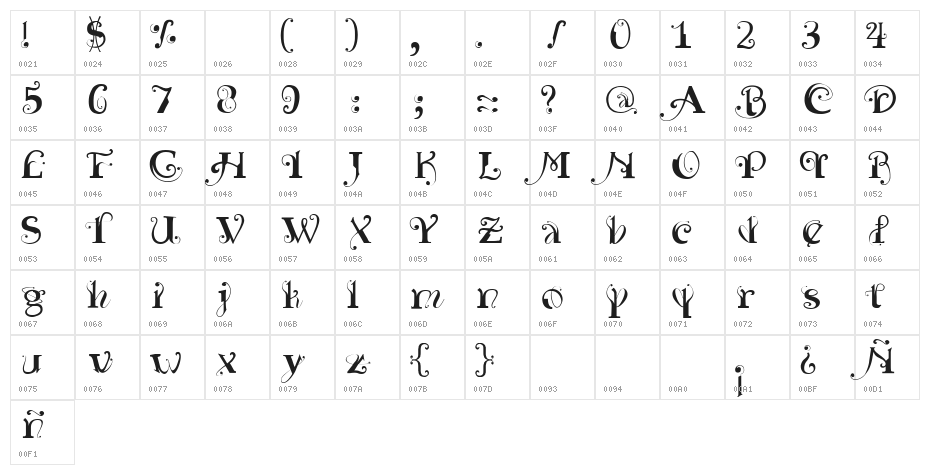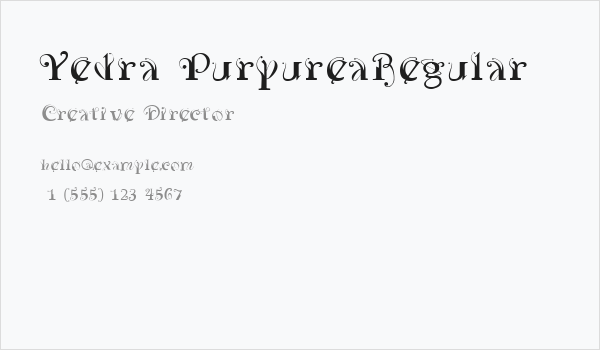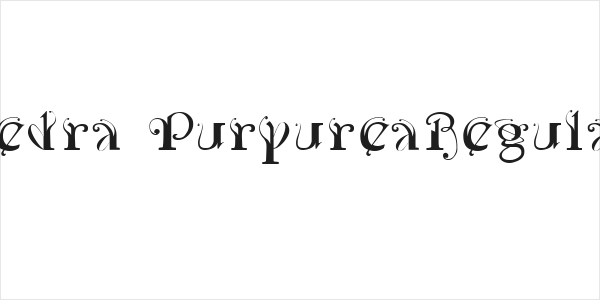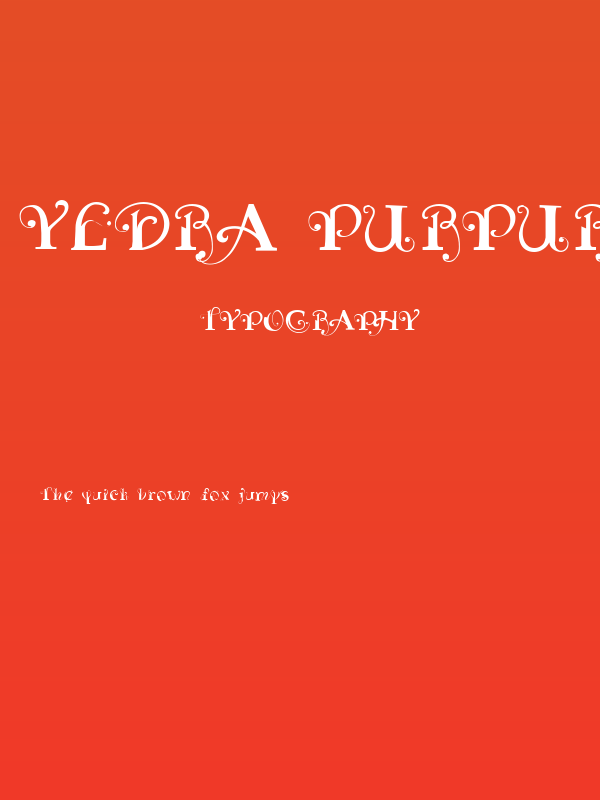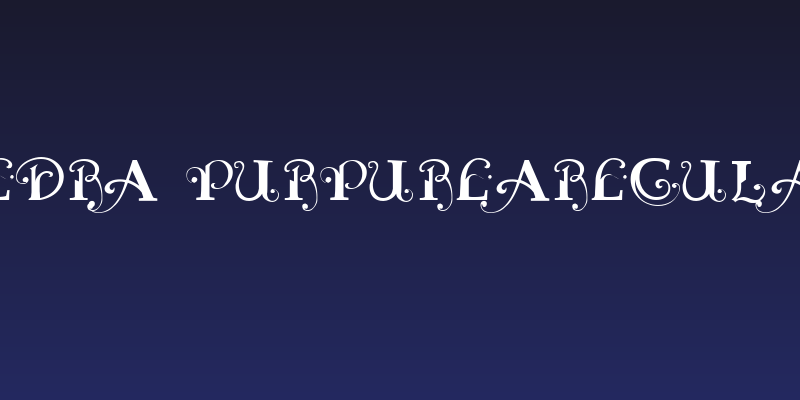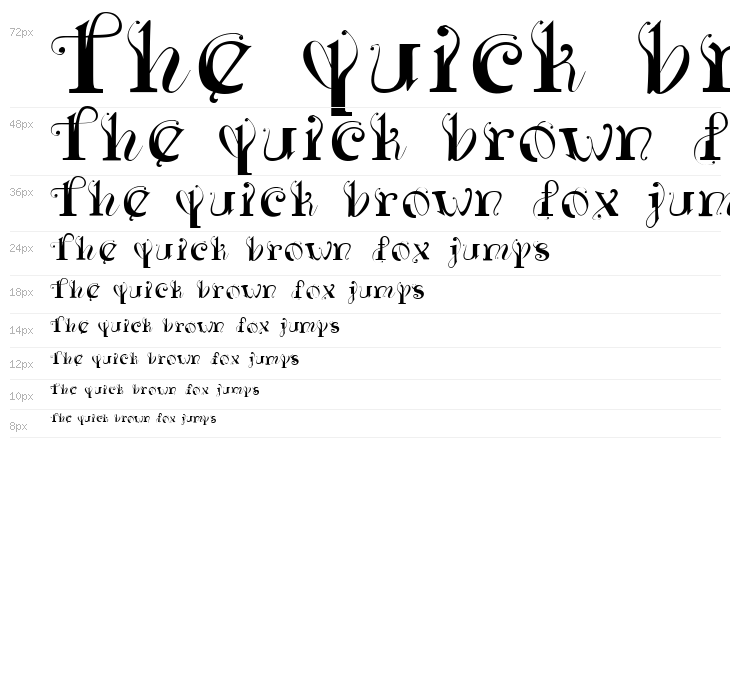
Yedra PurpureaRegular Font
Yedra PurpureaRegular Description
This font features an ornate and decorative style with elaborate swirls and flourishes extending from the characters. The uppercase letters are bold and striking, with intricate details that give them a whimsical and artistic flair. The lowercase letters maintain a similar decorative theme, with some characters having unique loops and curls. The numbers are equally stylized, incorporating the same ornamental elements. Special characters are designed with the same attention to detail, making them visually cohesive with the rest of the font. This font is ideal for projects that require a touch of elegance and creativity.
| Use Case | Headlines, Logos, Artistic projects |
| Proposed Projects | Ideal for wedding invitations, greeting cards, branding, and artistic posters. |